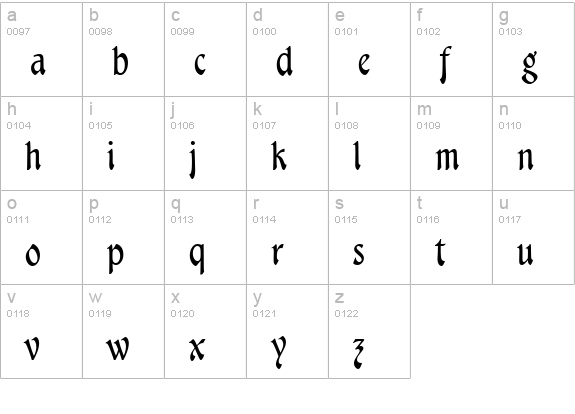
Tampico-Regular is the standard, neutral variant in the Tampico typeface family \xE2\x80\x94 well suited to general body text, paragraphs, and standard typographic work.
Tampico-Regular is a versatile and modern font that exudes sophistication and elegance. Its clean lines and balanced proportions make it the perfect choice for a wide range of design projects, from branding to editorial design. The timeless appeal of Tampico-Regular ensures that your text will always look professional and polished. The best part? Tampico-Regular is available for free download at FontsMarket.com. This means you can easily access this high-quality font without any cost, making it a valuable addition to your font library. Don't miss out on the opportunity to enhance your designs with the beautiful Tampico-Regular font – download it for free today!